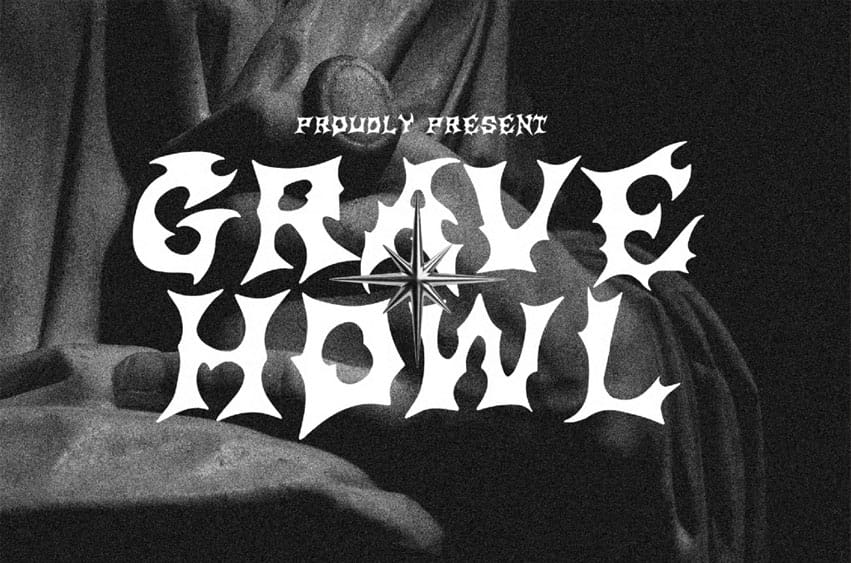
Gravehowl Deathmetal Font is a fierce and haunting death metal font that channels the chilling echoes of the grave and the agonizing wails of the departed.
The design features sharp, jagged edges and ominous, fractured lines, giving it the appearance of something ancient and decayed, as if it has emerged from the depths of the earth itself. The letterforms seem to scream and writhe, mirroring the tortured souls that roam the dark, forgotten corners of the afterlife.